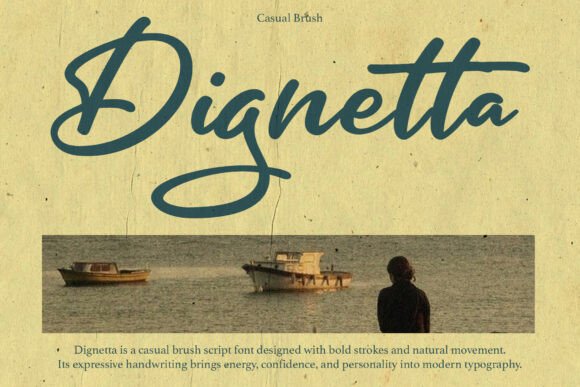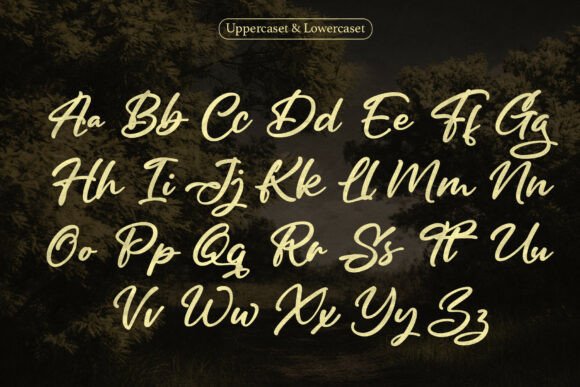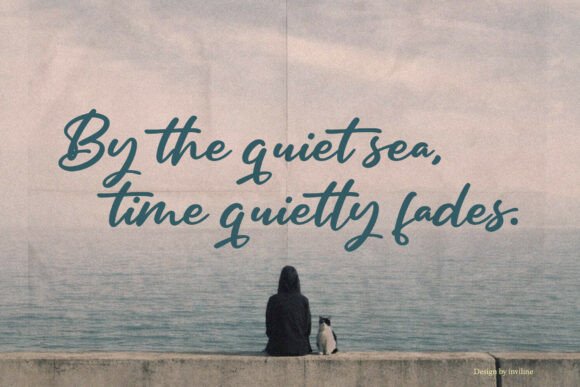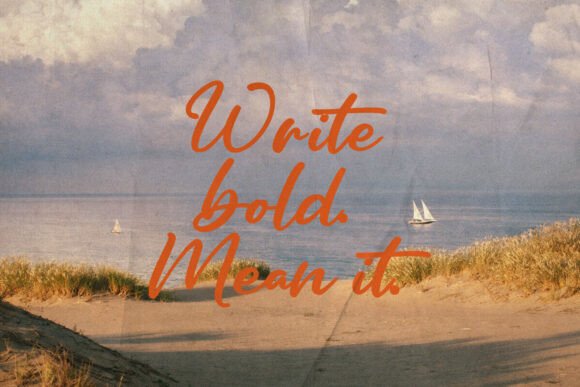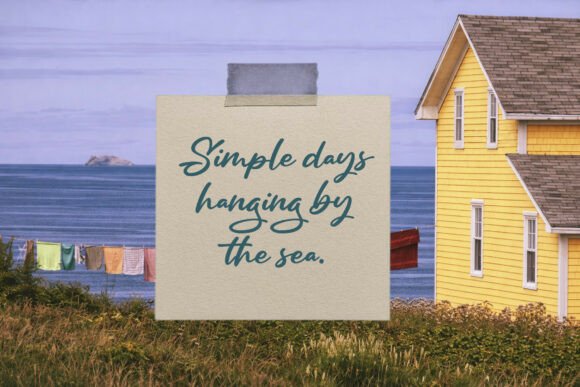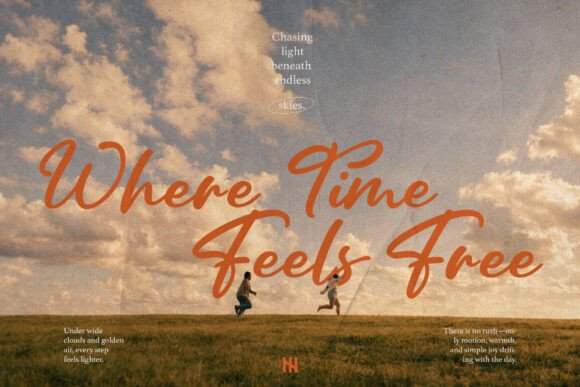
Discover the Charm of Dignetta Font
Imagine yourself in the midst of a creative project, surrounded by a flurry of ideas and inspiration. You’re on the hunt for the perfect font to bring your vision to life, something that exudes confidence and authenticity. As you browse through design resources, one font catches your eye – the Dignetta Font. Its bold, vivacious nature is impossible to ignore, and its organic contour seems to dance across the page.
For designers, the Dignetta Font is a valuable asset, offering a unique blend of style and legibility. Whether you’re working on a logo, social media content, or a custom signature, this brush script font is sure to elevate your design. Its high quality and transparent background make it a great choice for any creative project, from travel blogs to apparel design.
Key Features of Dignetta Font
- Includes a range of characters, including uppercase and lowercase letters, numbers, and punctuation marks, making it a versatile design resource.
- Characteristics of the Dignetta Font include elegant lines, subtle flair, and a touch of sophistication, making it perfect for high-end design projects.
- Designed to be highly legible and visually appealing, the Dignetta Font is an excellent choice for designers seeking a unique and professional look.
Honest Review: Dignetta Font
I recently had the chance to try out the Dignetta Font for my latest design project, and I’m excited to share my honest thoughts. This font has been a game-changer for my creative projects, and I’m not surprised why it’s become a popular design resource.
- High-quality font with crisp lines and a clean design
- Perfect for creating a professional and elegant look in my designs
- ⚠️ Limited font styles and weights, which may not be suitable for all design projects
- ⚠️ Not as customizable as some other fonts I’ve worked with
Overall, I’m really impressed with the Dignetta Font. It’s a great addition to my design resource library, and I would definitely recommend it to fellow designers. If you’re looking for a high-quality font for your next creative project, I’d say give Dignetta a try!
Tips for Getting the Most Out of Dignetta Font
To get the most out of the Dignetta Font, be sure to use it in high quality designs, such as business cards, brochures, and logos. You can also use the font in combination with other design elements, such as images and graphics, to create a unique and eye-catching design.
Common Use Cases for Dignetta Font
The Dignetta Font is commonly used in a variety of creative projects, including business cards, brochures, logos, and social media graphics. Its high quality and unique design make it a popular choice among designers and non-designers alike.